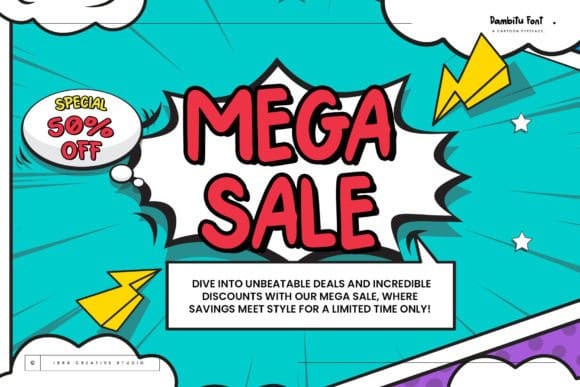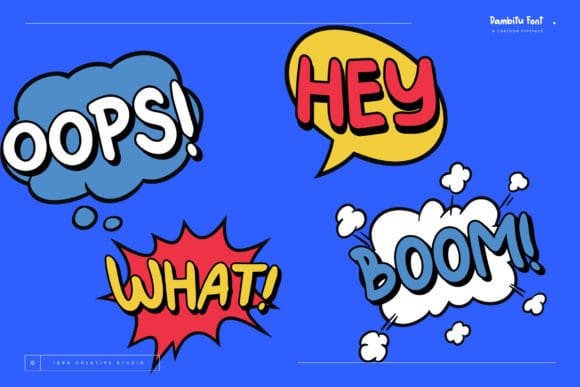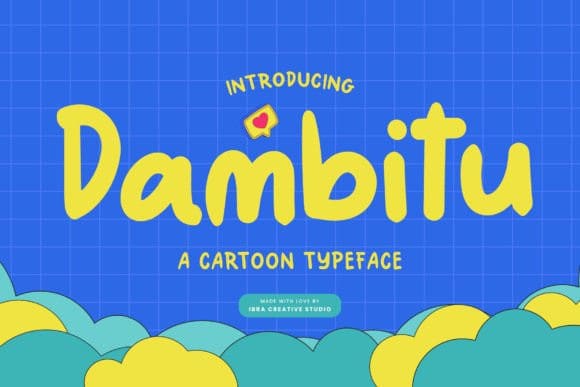
Dambitu Playful Font
Dambitu Playful Font, a whimsical cartoon typeface, bursts with playful exuberance and animated charm. Each letter is a vibrant character in its own right, showcasing exaggerated curves and lively strokes that dance across the page with a sense of delightful mischief. The font’s design embraces a playful spirit, reminiscent of hand-drawn cartoons, making it a perfect choice for projects that seek to infuse a sense of humor, cheerfulness, and a touch of childhood nostalgia.